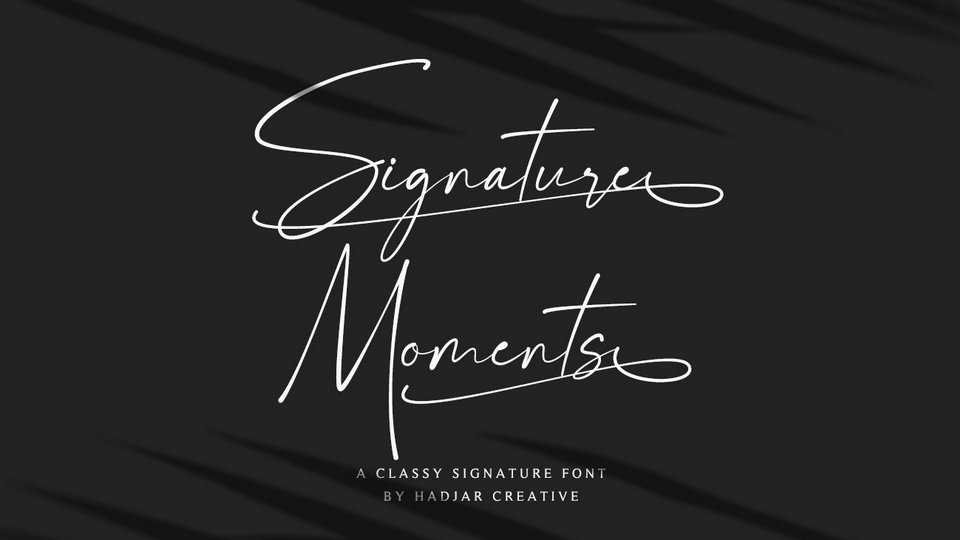
Download Signature Moments font, a classy, stylish, simple and elegant signature font. Specially designed with the concept of script fonts with natural pen strokes.
Designer: Hadjar Creative